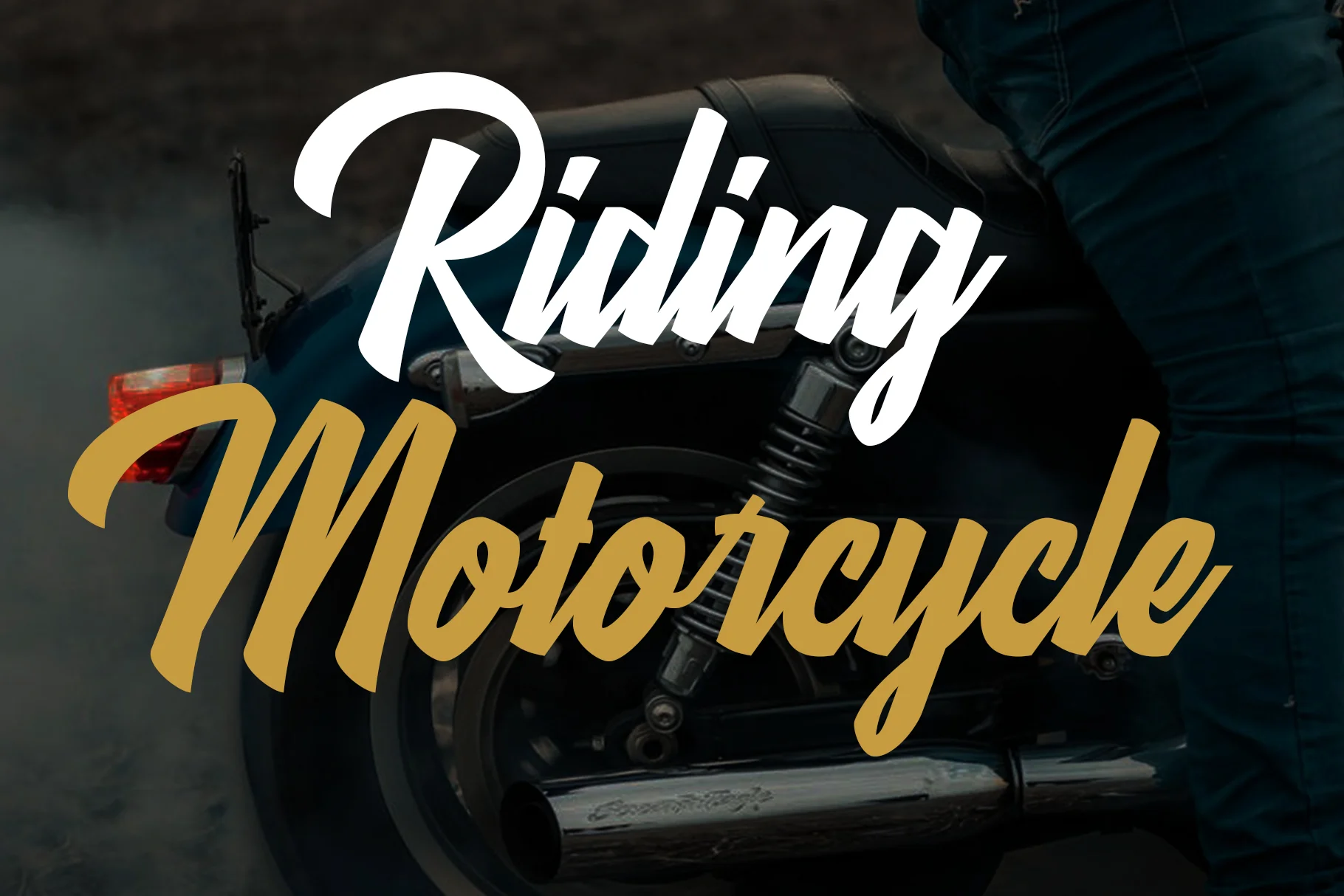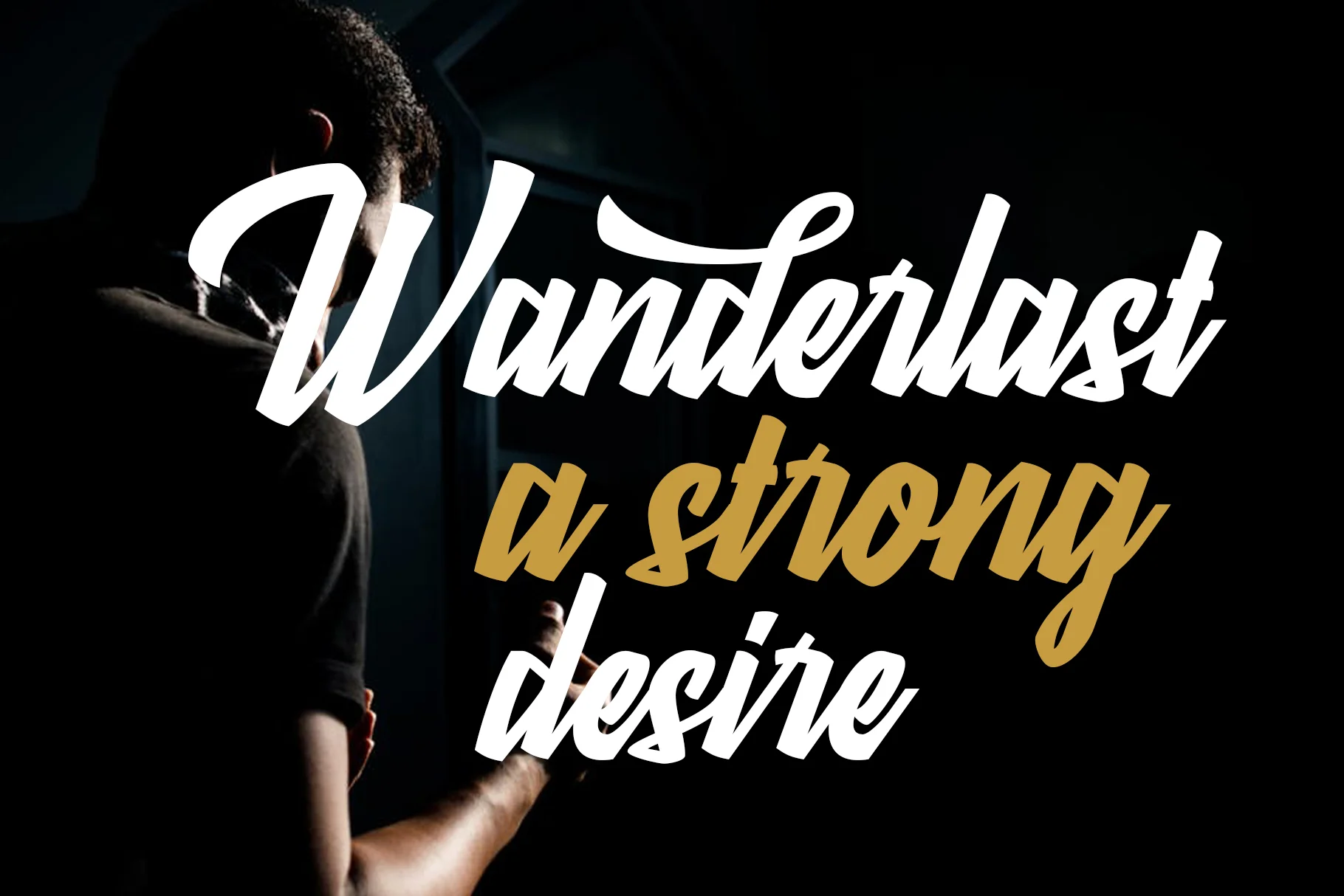
Kathers Mellow
Kathers Mellow is a bold, dynamic, and fashionable handwritten script, perfect for creating a personal and high-energy visual identity. This font mimics the appearance of fast, expressive handwriting using a brush or marker. The strokes are very thick and varied, creating the illusion of being drawn with a large brush or a thick marker.
Features
- Uppercase and Lowercase – Complete range of letter cases for diverse uses.
- Numerals – Includes numbers for various creative needs.
- Functional – Designed for efficiency and aesthetic appeal.
- Multilingual Support – Includes characters for multiple languages.
- Stylistic Variations – Offers creative style options.